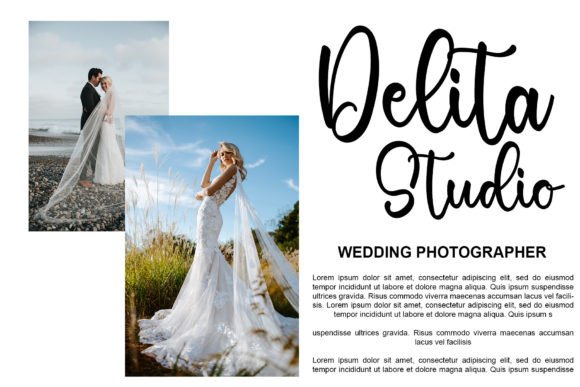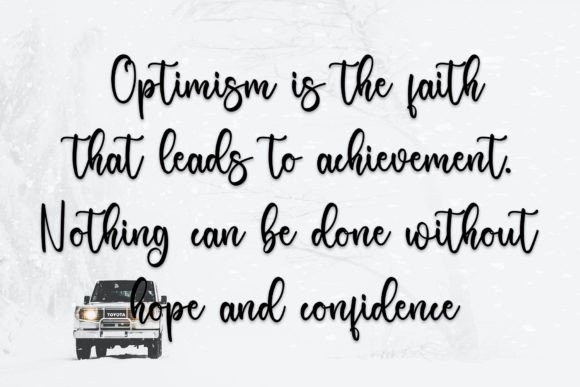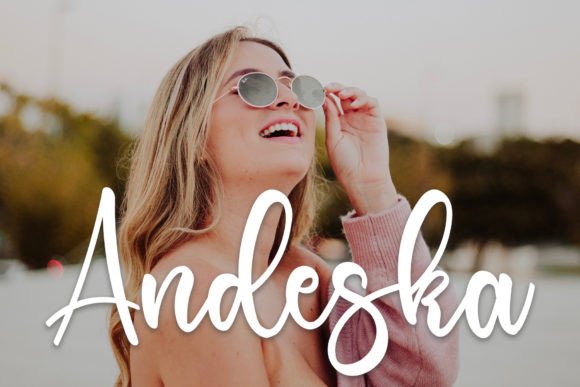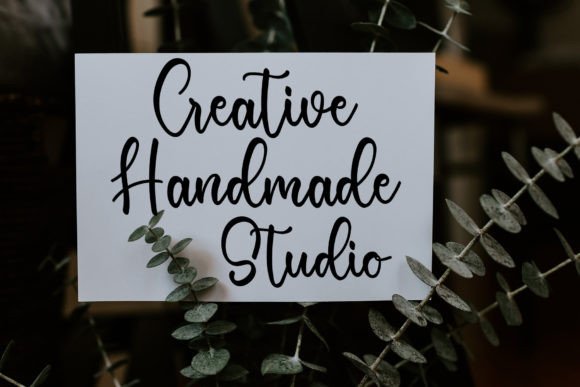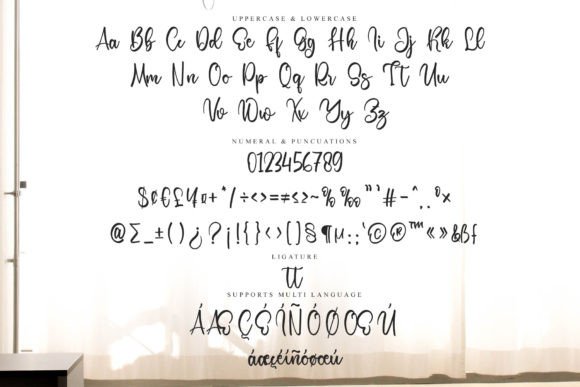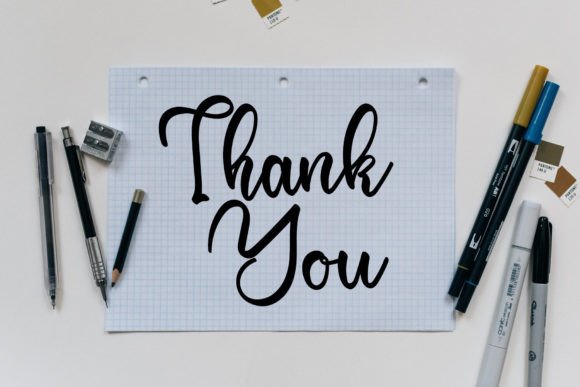
Introducing Daily Font: The Perfect Handwritten Touch for Your Designs
Are you a designer or crafter looking for a font that can add a touch of elegance and charm to your designs? Look no further than Daily Font. This beautiful handwritten font is perfect for a variety of design projects, from wedding invitations and thank you cards to quotes, greeting cards, logos, and business cards.
What Makes Daily Font So Special?
Daily Font is a unique and versatile font that is sure to impress. Its elegant and charming design makes it perfect for any project that requires a handwritten touch. The font is carefully crafted to provide a natural and effortless look, making it ideal for designs that require a personal touch.
Uses for Daily Font
Daily Font is a versatile font that can be used for a wide range of design projects. Here are some ideas to get you started:
- Wedding Invitations: Add a touch of elegance and sophistication to your wedding invitations with Daily Font. The font’s beautiful handwritten design is perfect for formal and informal wedding invitations alike.
- Thank You Cards: Show your appreciation with beautifully designed thank you cards featuring Daily Font. The font’s charming design is sure to make your cards stand out.
- Quotes: Add a touch of inspiration to your quotes with Daily Font. The font’s elegant design is perfect for creating beautiful and uplifting quotes.
- Greeting Cards: Create beautiful and personalized greeting cards for any occasion with Daily Font. The font’s natural and effortless design makes it perfect for birthday cards, holiday cards, and more.
- Logos: Add a personal touch to your logos with Daily Font. The font’s unique design is sure to make your logos stand out.
- Business Cards: Create professional and elegant business cards with Daily Font. The font’s sophisticated design is perfect for any business looking to make a great impression.
Why Choose Daily Font?
There are many reasons why Daily Font is the perfect choice for your design projects. Here are just a few:
- Unique Design: Daily Font has a unique and elegant design that is sure to impress.
- Versatility: The font can be used for a wide range of design projects, from wedding invitations to logos.
- Elegant and Charming: Daily Font’s elegant and charming design makes it perfect for any project that requires a handwritten touch.
- Easy to Read: The font is carefully crafted to be easy to read, making it perfect for designs that require a lot of text.
Tips for Using Daily Font
Here are a few tips for using Daily Font in your design projects:
- Pair with Other Fonts: Daily Font pairs well with other fonts, so don’t be afraid to experiment with different combinations.
- Use for Headlines and Body Text: Daily Font is perfect for both headlines and body text, making it a versatile font for any design project.
- Experiment with Colors: Daily Font looks great in a variety of colors, so don’t be afraid to experiment with different color schemes.
Daily Font is a beautiful and versatile handwritten font that is perfect for a wide range of design projects. Its elegant and charming design makes it ideal for wedding invitations, thank you cards, quotes, greeting cards, logos, business cards, and more. With its unique design, versatility, and ease of use, Daily Font is sure to become a favorite font in your design arsenal.